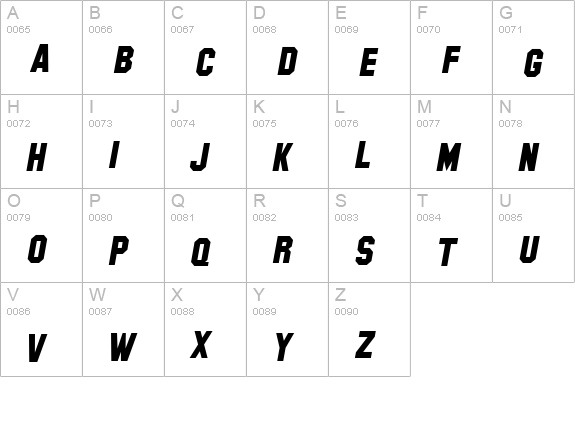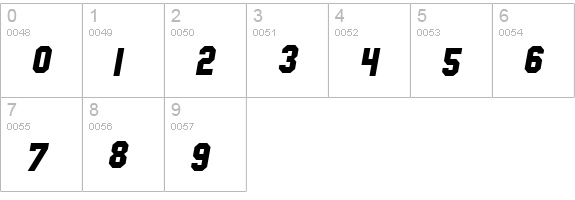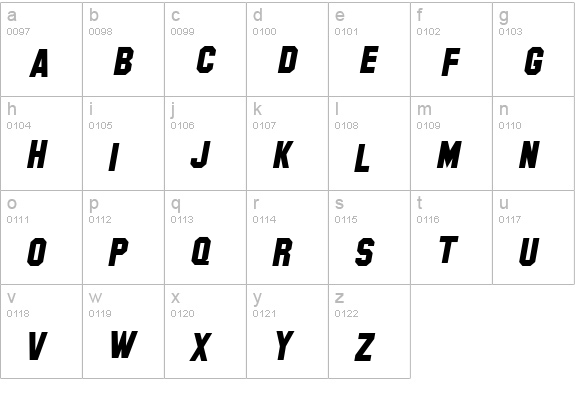
Hollywood Hills Italic is a distinctive, italic variant in the Hollywood typeface family \xE2\x80\x94 well suited to design and typography projects.
Introducing Hollywood Hills Italic font, a sleek and stylish typeface that exudes elegance and sophistication. With its bold yet graceful curves, this font is perfect for adding a touch of glamour to your designs. Whether you're creating a poster, logo, or website graphics, Hollywood Hills Italic font will make your text stand out. The best part? Hollywood Hills Italic font is completely free to download at FontsMarket.com. That's right, you can elevate your projects with this stunning font without spending a dime. Don't miss out on this opportunity to enhance your designs with Hollywood Hills Italic font's unique and eye-catching style. Download it now and let your creativity shine!